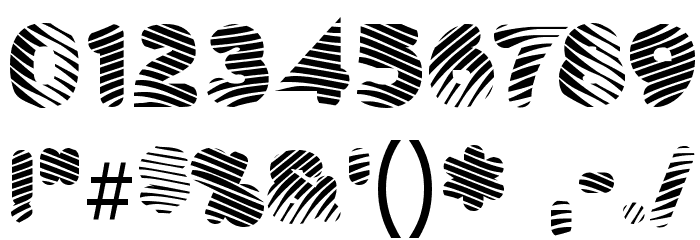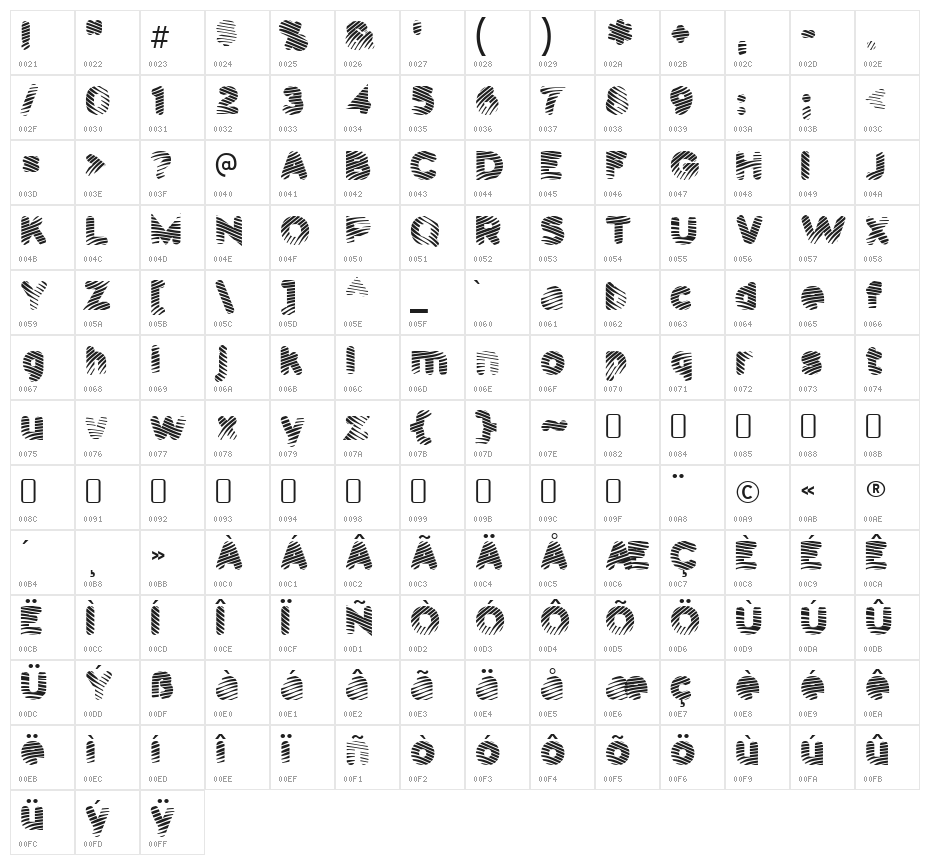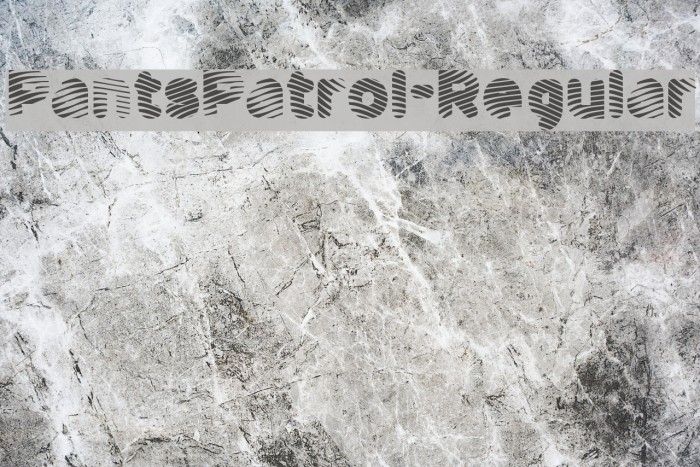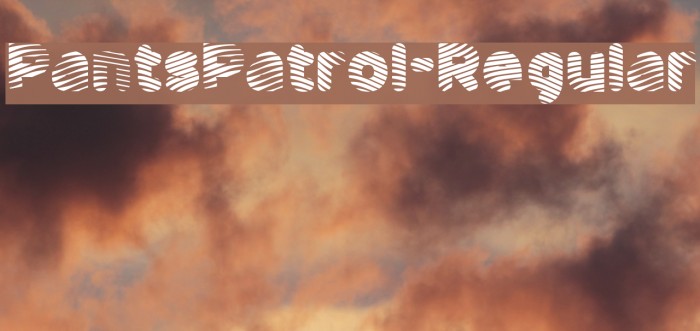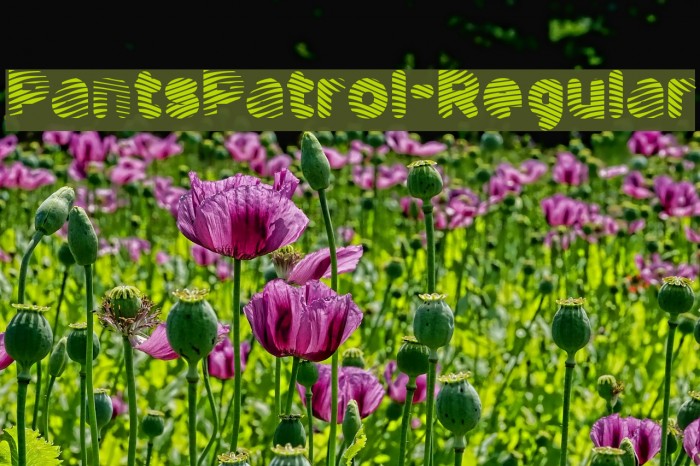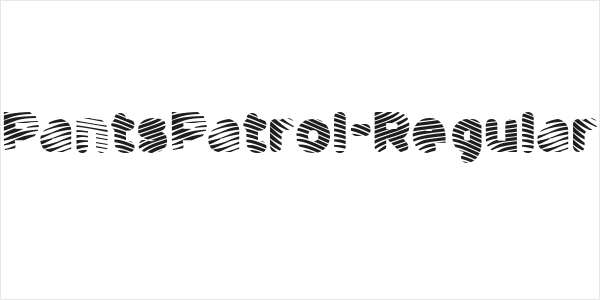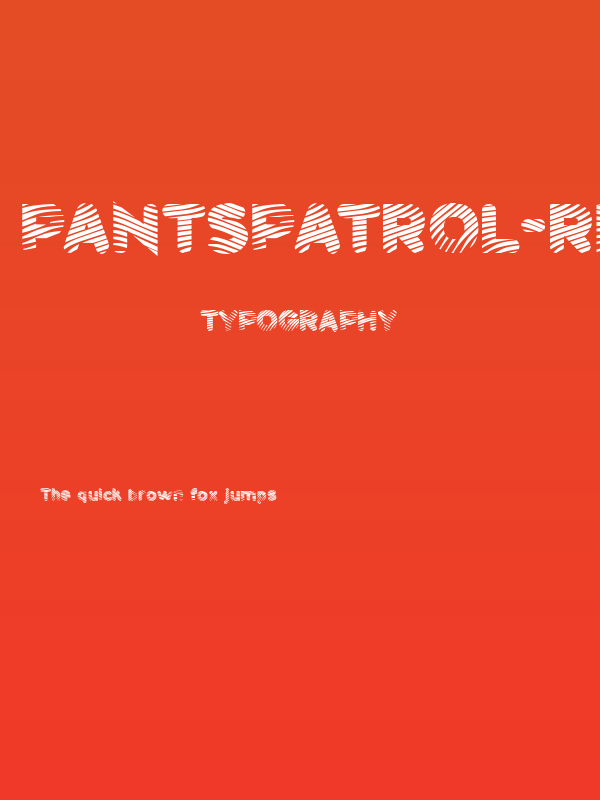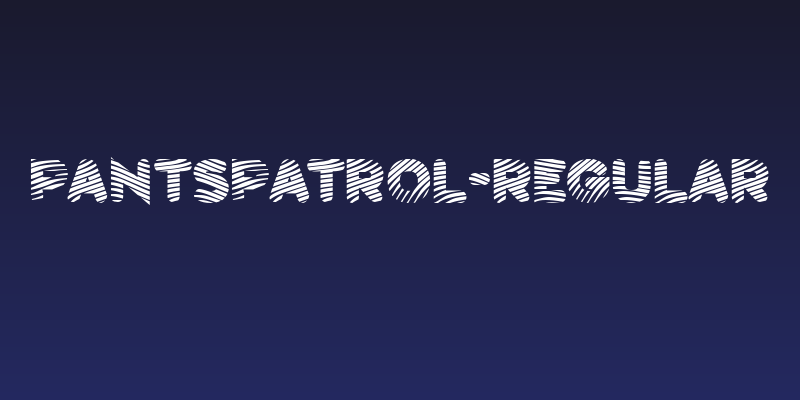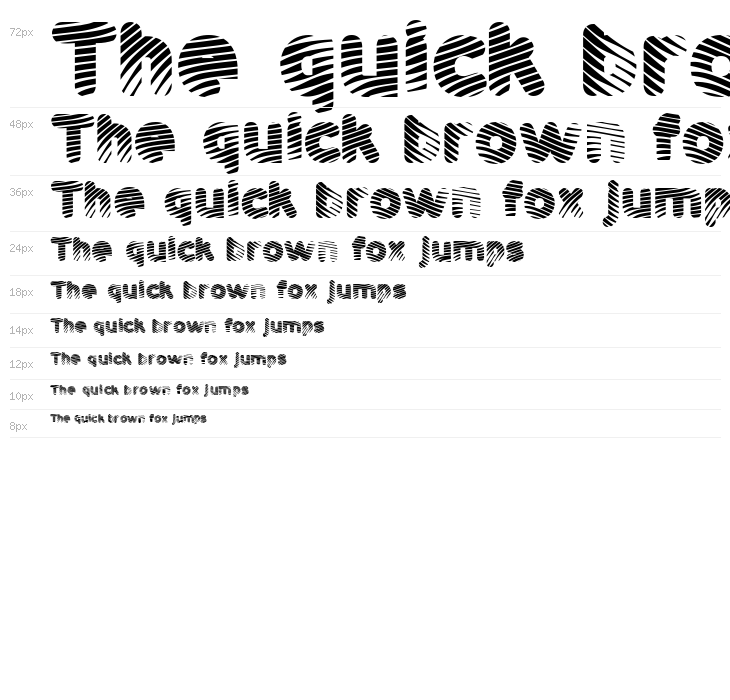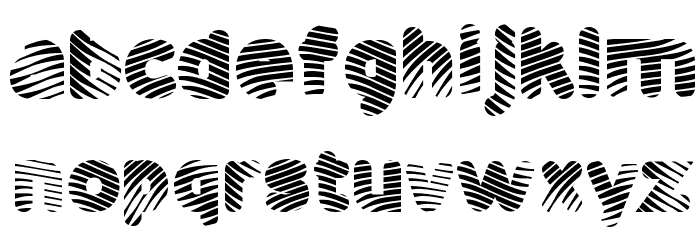
PantsPatrol-Regular Font
PantsPatrol-Regular Description
This font features a unique and playful design with a striped pattern running through each character, creating a dynamic and eye-catching effect. The letters are bold and rounded, giving them a friendly and approachable appearance. The uppercase and lowercase letters maintain a consistent style, while the numbers and special characters complement the overall aesthetic. The striped pattern adds a sense of movement and energy, making it suitable for creative and informal projects. Its distinct style ensures that it stands out, making it ideal for attention-grabbing designs.
| Overall Style | Playful, Creative, Dynamic |
| Proposed Projects | Ideal for posters, children's books, playful branding, and creative advertising campaigns. |